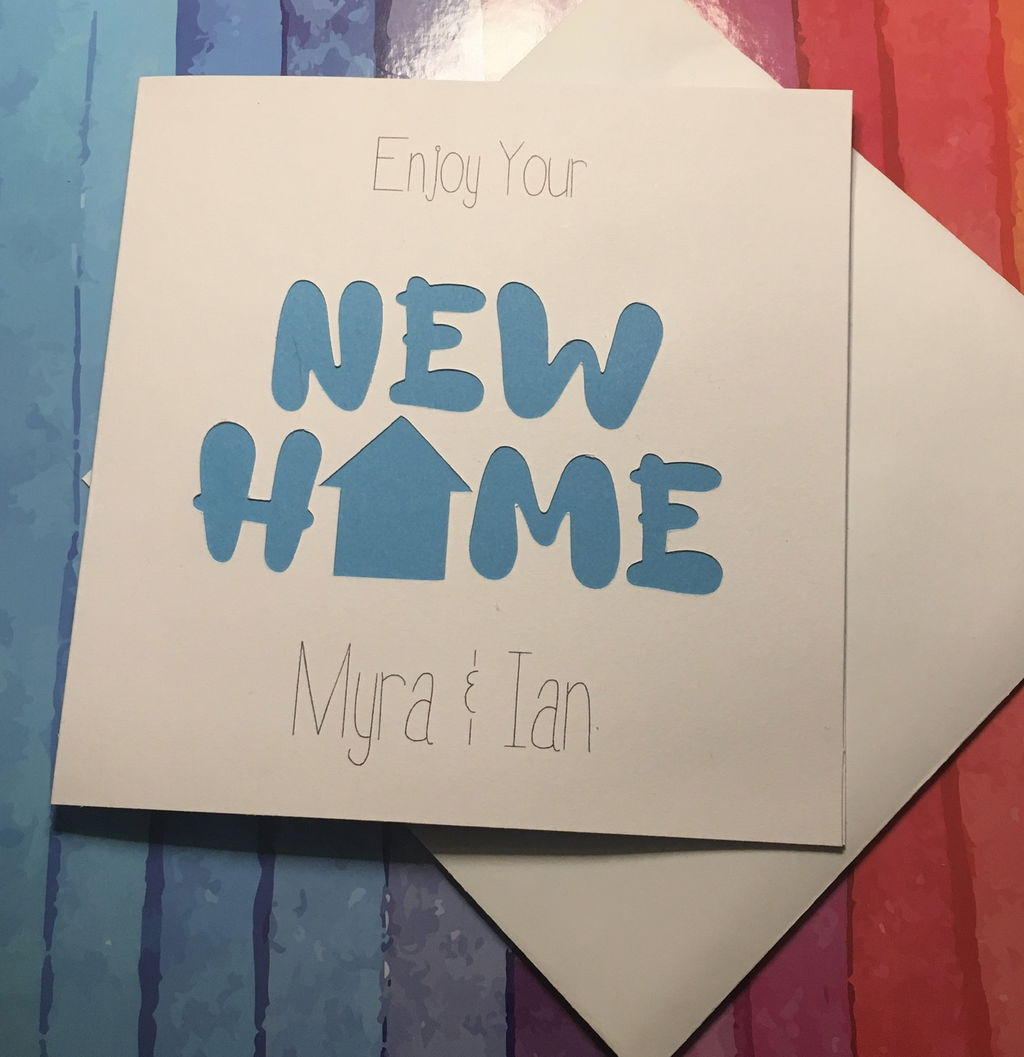
Skinny Jeans Sketch True Type Font (TTF)
This is a font designed for sketching with pens, pencils, etc in your machine. It will not look good if you try to cut vinyl with it or if you try to print it!